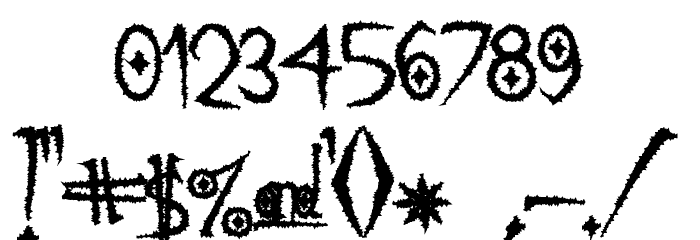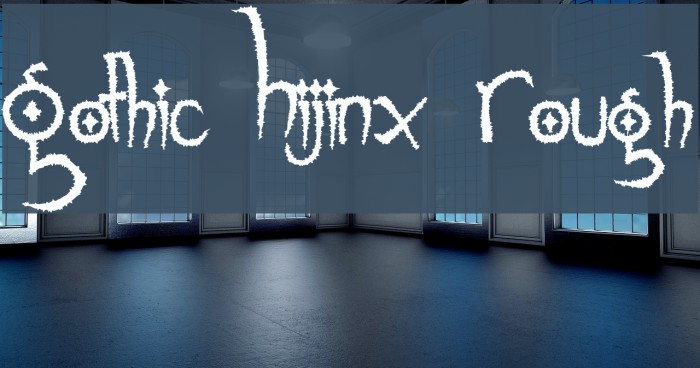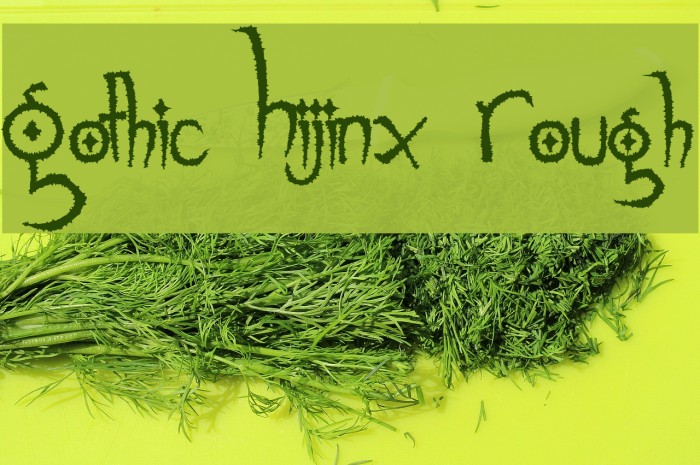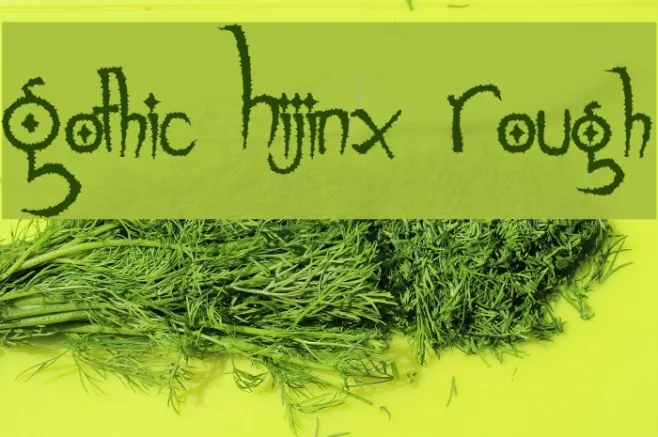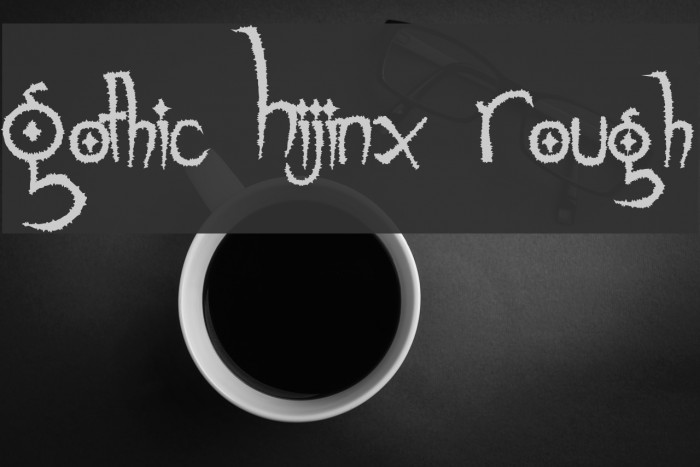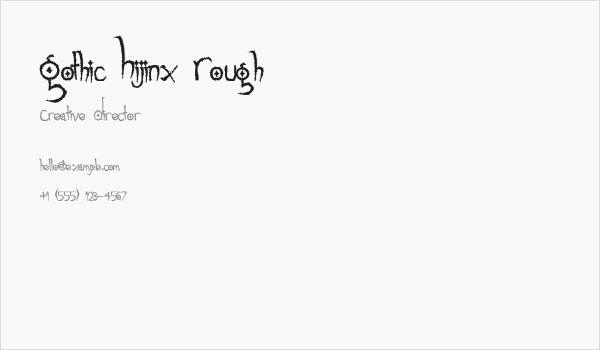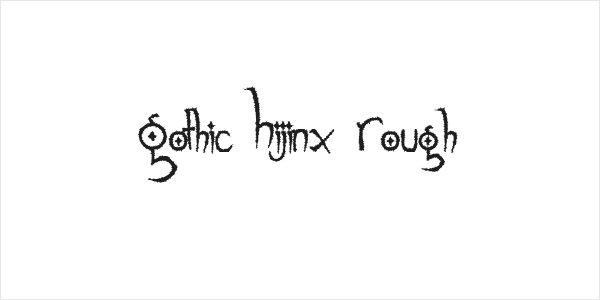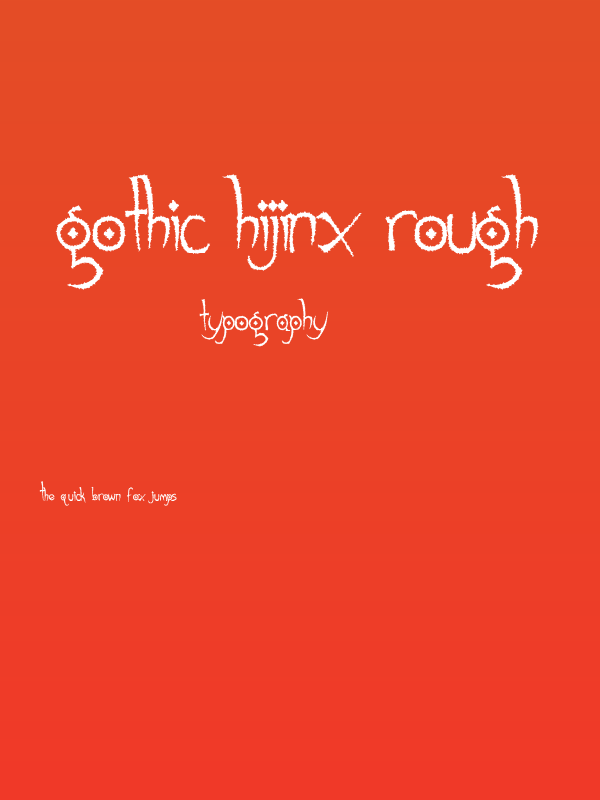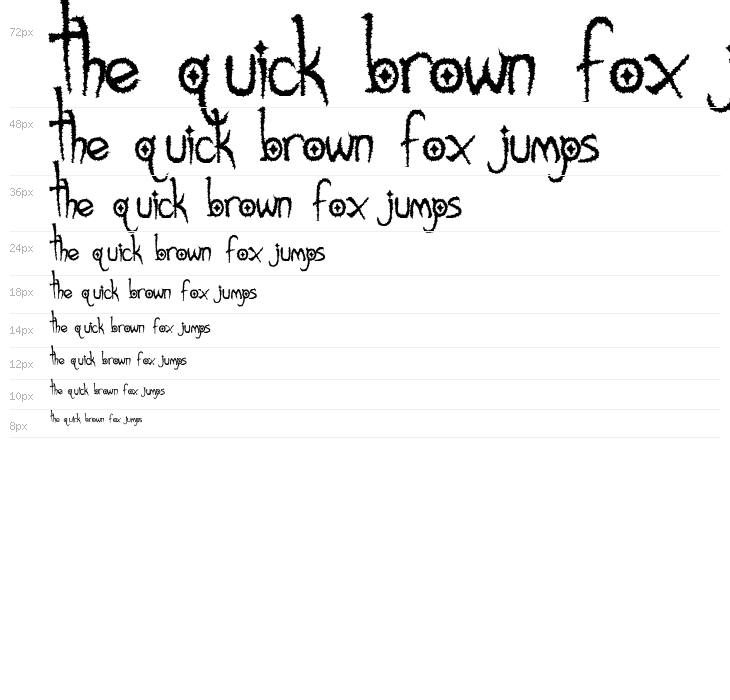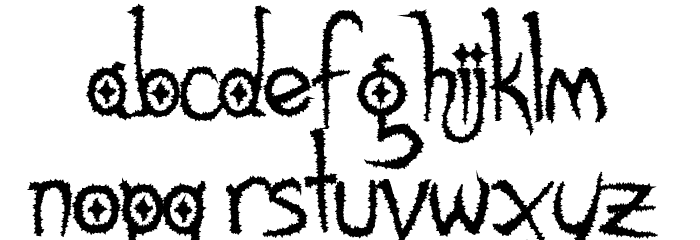
Gothic Hijinx Rough Font
Gothic Hijinx Rough Description
This font features a unique and edgy style with jagged, irregular edges that give it a rough and hand-drawn appearance. The characters are bold and expressive, with a playful yet slightly chaotic vibe. The uppercase and lowercase letters maintain a consistent design, with circular elements incorporated into some characters, adding to its quirky aesthetic. The numbers and special characters follow the same design principles, ensuring a cohesive look throughout. This font's distinctive style makes it stand out, perfect for projects that require a bold and unconventional typeface.
| Use Case | Headlines, Posters, Logos |
| Proposed Projects | Ideal for Halloween-themed designs, edgy posters, album covers, or any project needing a bold, unconventional typeface. |